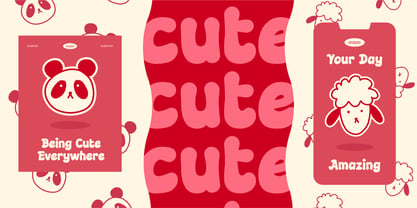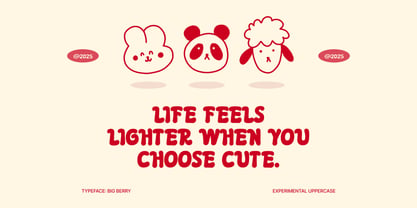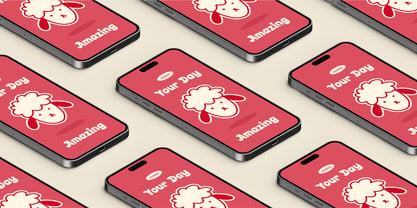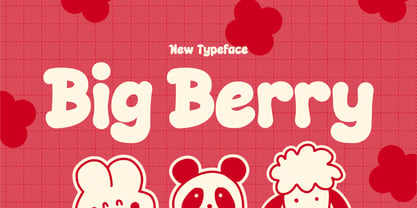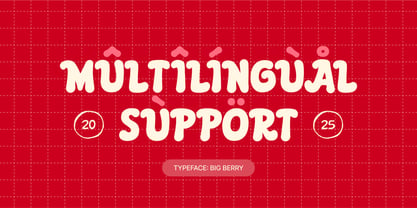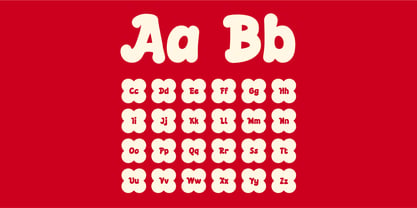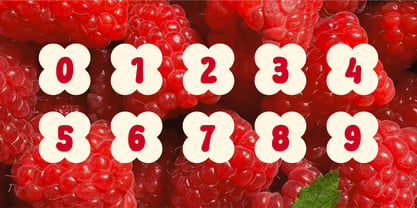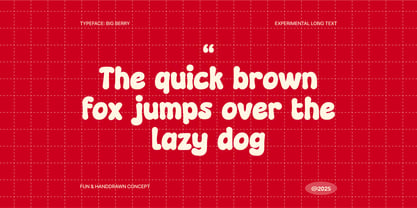
Big Berry
by Slidehack
The Big Berry Font Family was designed by Excellent Ritma Florendia and published by Slidehack. Big Berry contains 1 styles. More about this family
Meet BigBerry: a wonderfully fun, bold, and playful display font designed to inject energy and creativity into your projects. With its distinct chunky and rounded letterforms, it brings a sense of joy and approachability that is absolutely perfect for children's themes, vibrant branding, and social media graphics. This versatile typeface excels in making a powerful visual impact, whether you're designing eye-catching posters, memorable logos, engaging product packaging, or cheerful party invitations. BigBerry’s modern yet friendly character ensures your work doesn't just get seen—it gets remembered. Let your designs stand out with its uniquely cheerful and contemporary touch.
Designers: Excellent Ritma Florendia
Foundry: Slidehack